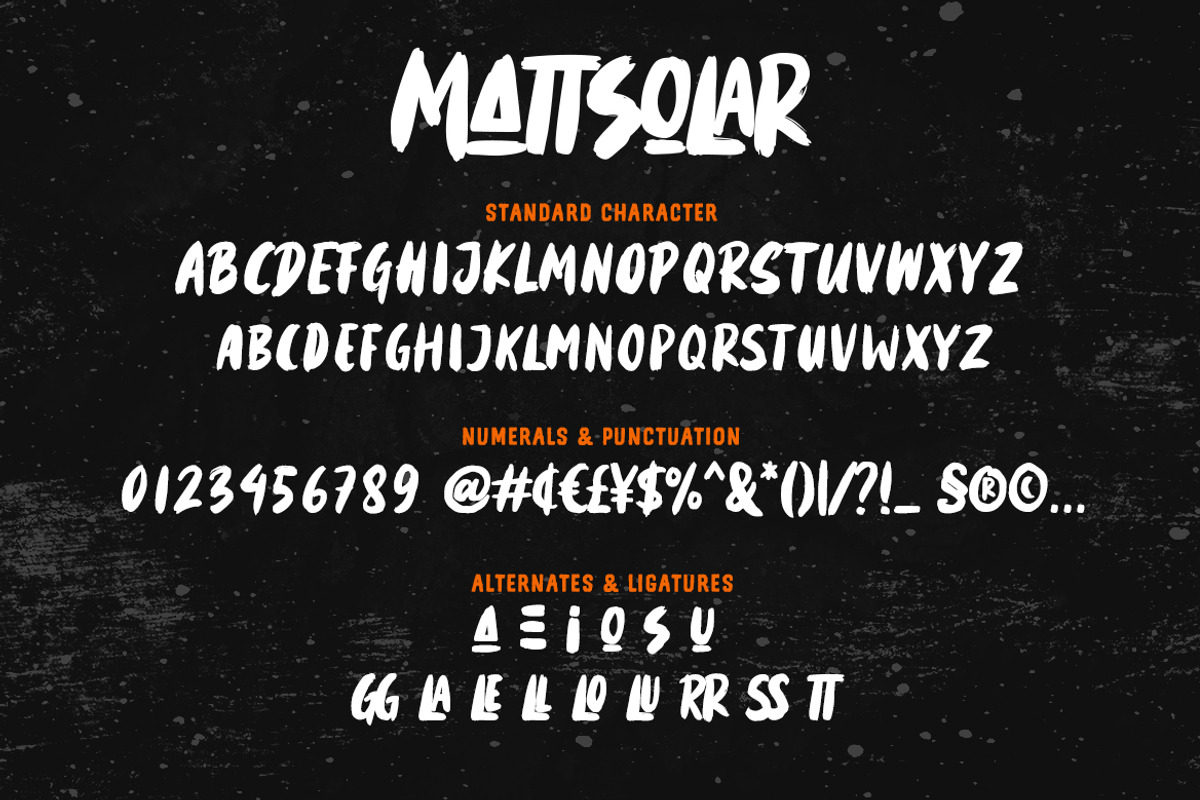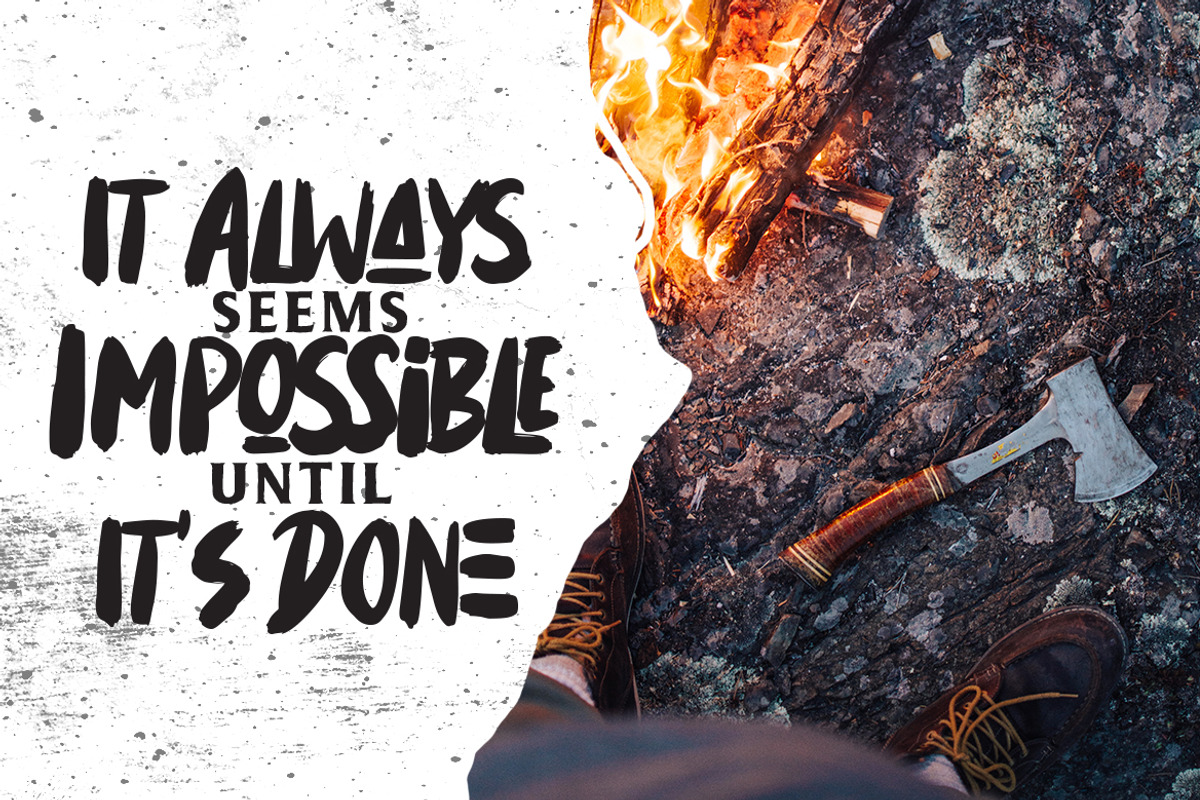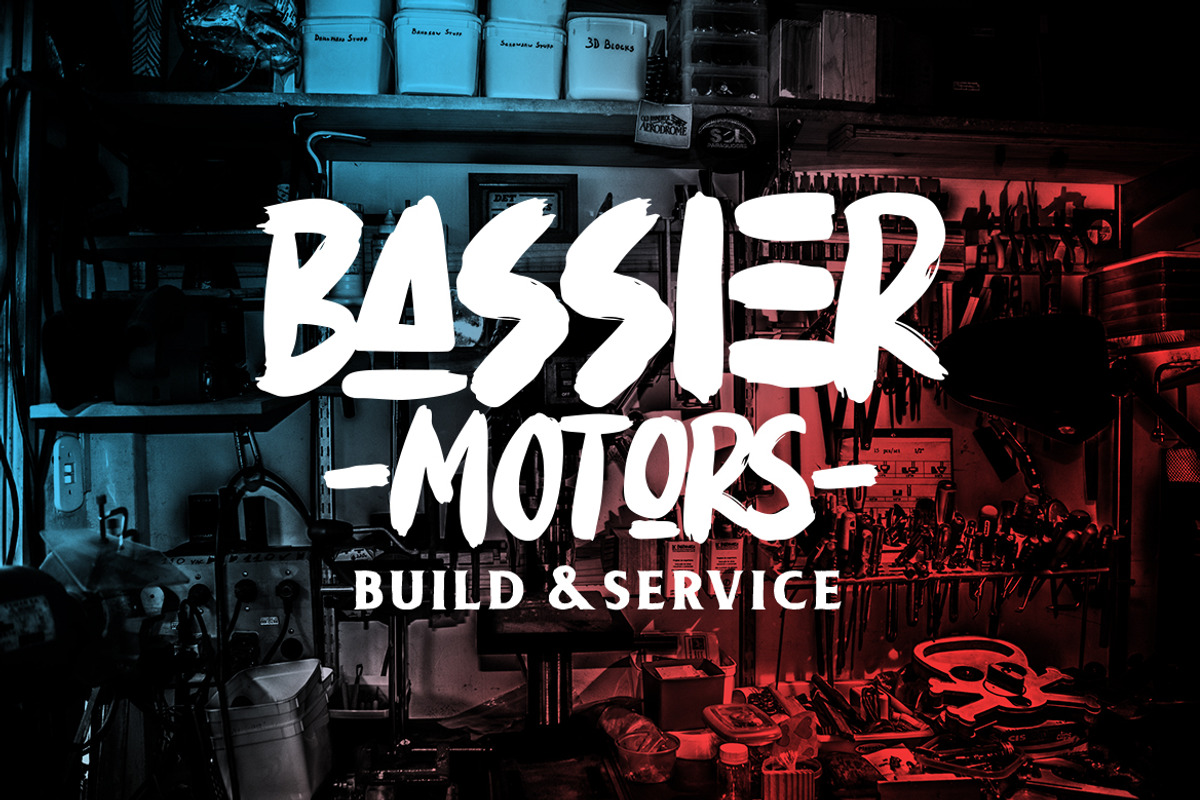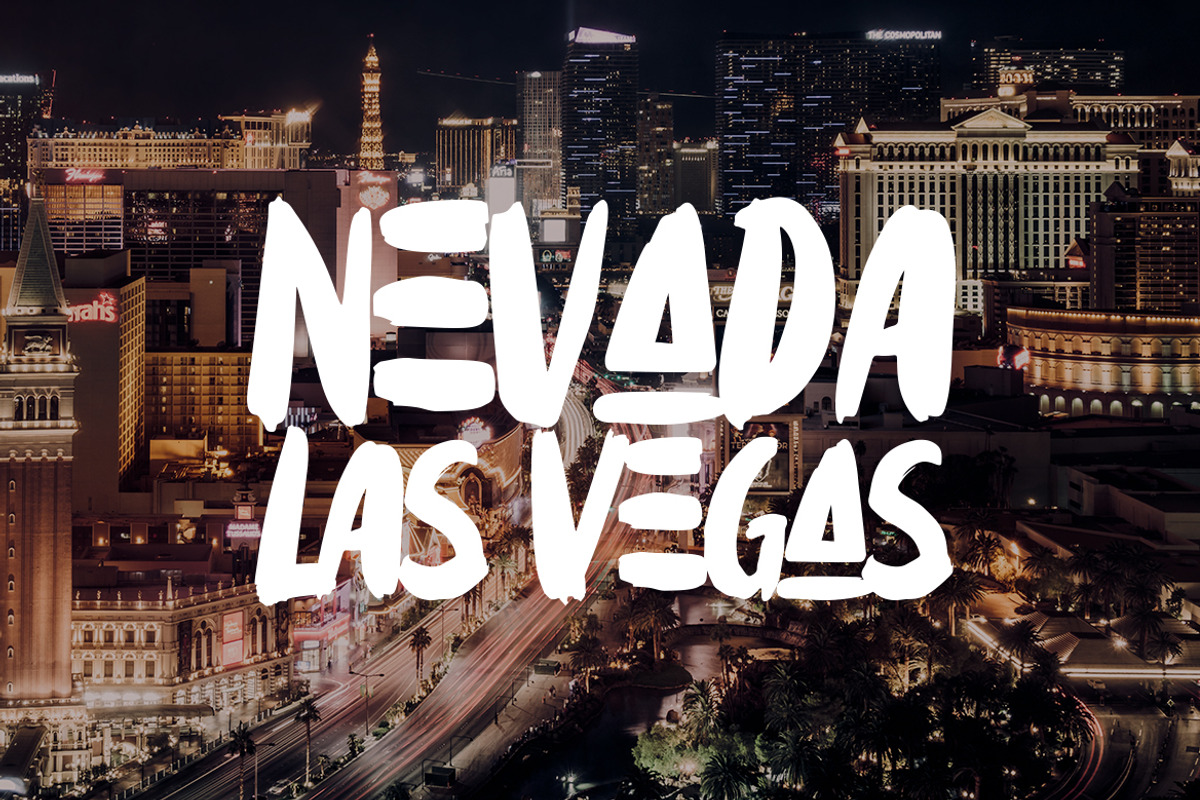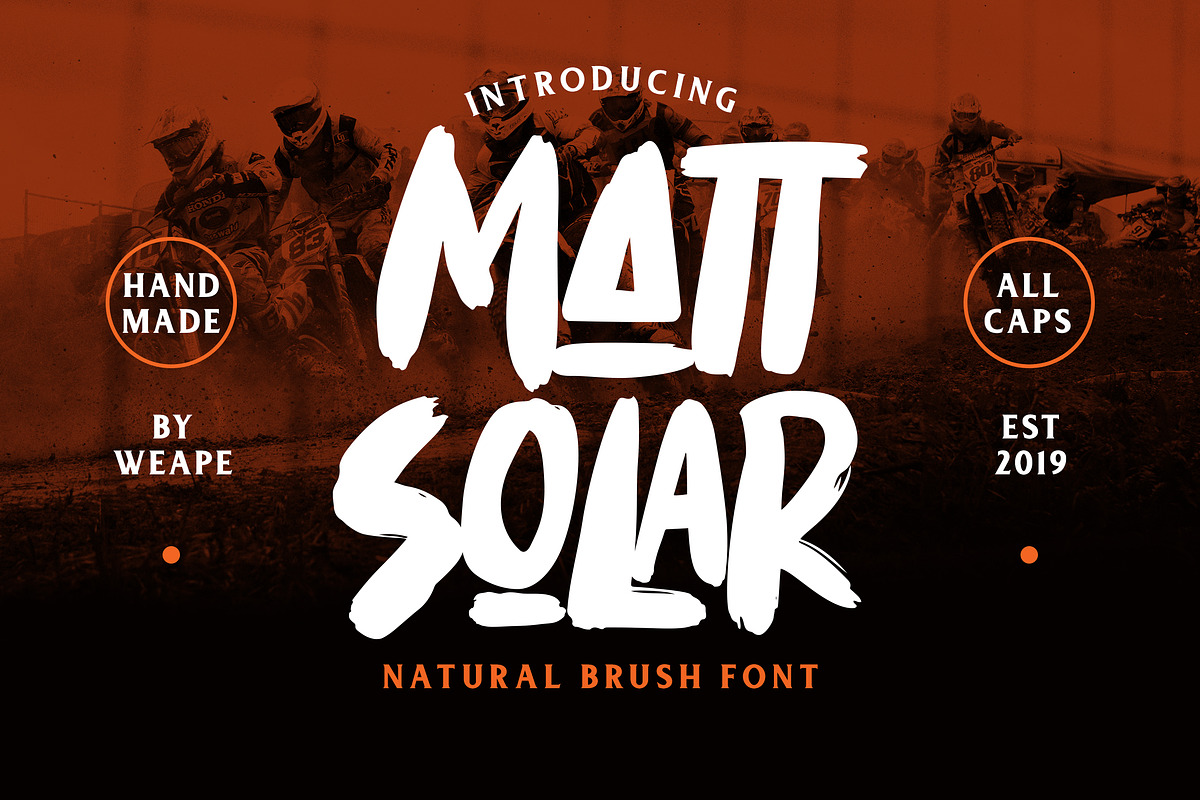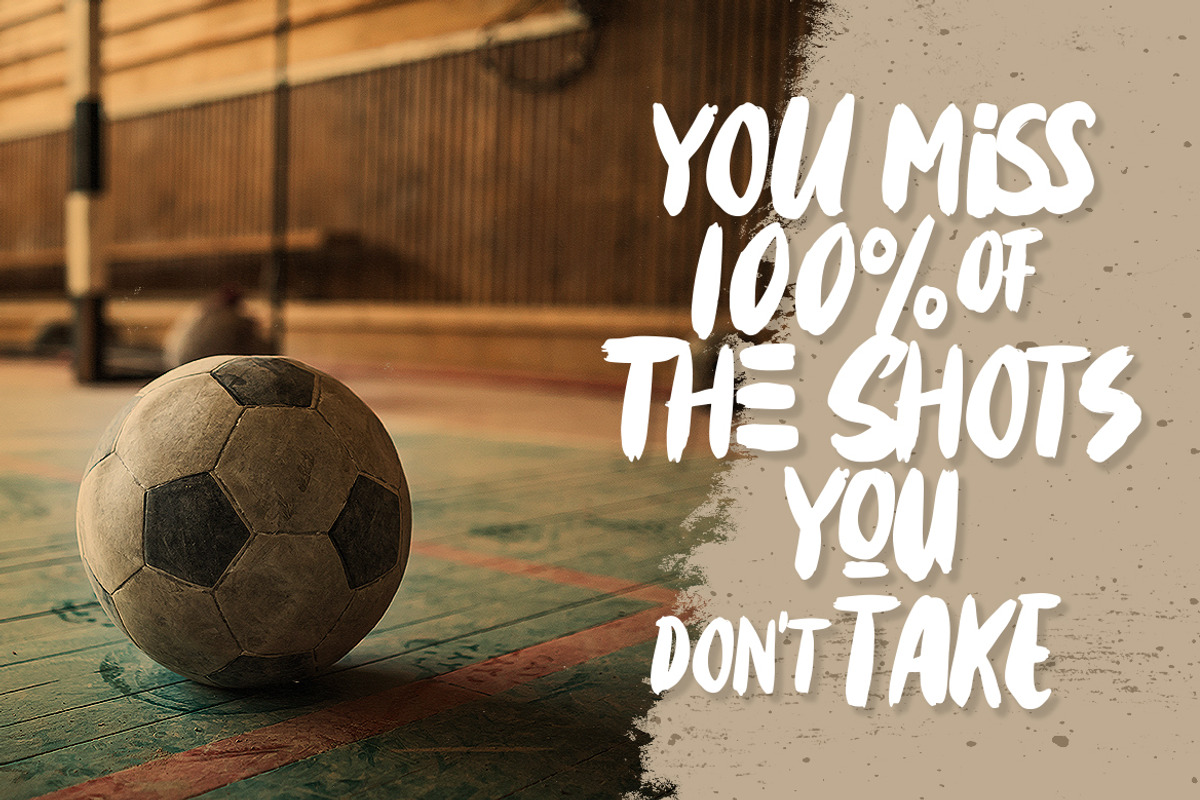
Mattsolar - Brush Font
Mattsolar is brush font with natural rough dry brush strokes, and the stroke of hand sharp and quickly. You can use and enjoy Mattsolar, for anything from promotional material and handwritten quotes, to product packaging, merchandise and branding projects
And this font perfect for signature, logo, branding, poster, apparel, photography, title, social media post, ad banner, book cover, product packaging, handwritten quotes, greeting cards and advertising. You can create more easily with many ligatures and make it as if you wrote it yourself.
All fonts is capitals containing upper & lowercase characters, numerals, multilingual support and a large range of punctuation. With OTF and TTF format.
- You can create more easily with many ligatures and make it as if you wrote it yourself.
- All fonts is capitals containing upper & lowercase characters, numerals, multilingual support and a large range of punctuation.
Mattsolar - Brush Font by Weape Studio fits naturally into Branding, posters, packaging, typography.